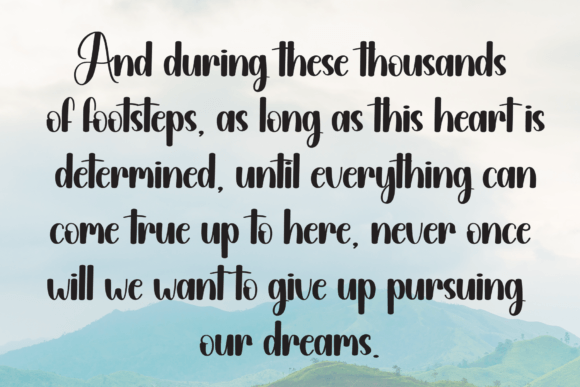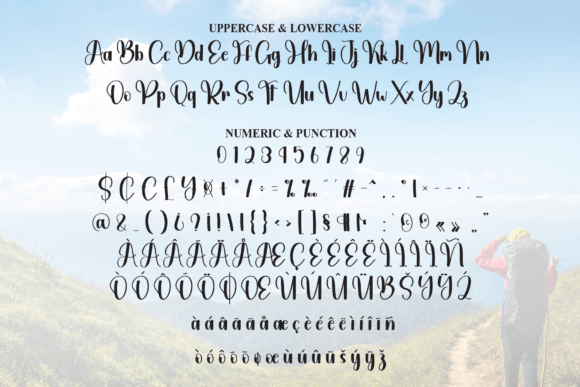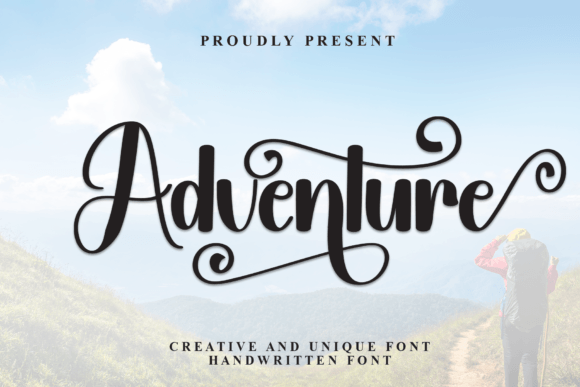
Introducing Adventure Font: The Perfect Companion for Fun and Creative Projects
Are you tired of using the same old fonts for your designs? Do you want to add a touch of personality and playfulness to your projects? Look no further than Adventure Font, a lively and handwritten font that’s perfect for fun and creative endeavors. In this article, we’ll take a closer look at what makes Adventure Font special and how you can use it to elevate your designs.
What is Adventure Font?
Adventure Font is a playful and lively handwritten font that looks like it was written with a marker or pen. Its personal and friendly feel makes it perfect for a wide range of applications, from fun projects and greeting cards to creative posters and more. With its unique and charming aesthetic, Adventure Font is sure to capture the attention of your audience and leave a lasting impression.
Key Features of Adventure Font
So, what sets Adventure Font apart from other fonts? Here are some of its key features:
• Handwritten with a personal touch: Adventure Font has a distinctly handwritten feel, as if it was written with a marker or pen. This gives it a personal and friendly aesthetic that’s hard to replicate with traditional fonts.
• Playful and lively: Adventure Font is the perfect choice for designers who want to add a touch of playfulness and whimsy to their projects. Its lively and energetic feel is sure to capture the attention of your audience.
• Versatile: Whether you’re working on a fun project, creating a greeting card, or designing a poster, Adventure Font is the perfect choice. Its versatility makes it suitable for a wide range of applications.
How to Use Adventure Font in Your Designs
Now that we’ve covered the basics of Adventure Font, let’s take a look at how you can use it in your designs. Here are some ideas to get you started:
• Greeting cards: Adventure Font is perfect for creating personalized greeting cards for special occasions. Its playful and friendly feel makes it ideal for birthdays, holidays, and other celebrations.
• Posters and flyers: Add a touch of whimsy and playfulness to your posters and flyers with Adventure Font. Its lively and energetic feel is sure to capture the attention of your audience.
• Fun projects: Whether you’re working on a craft project, creating a DIY tutorial, or designing a social media graphic, Adventure Font is the perfect choice. Its playful and friendly feel makes it ideal for fun and creative projects.
Tips for Getting the Most Out of Adventure Font
To get the most out of Adventure Font, here are some tips to keep in mind:
• Experiment with different colors: Adventure Font looks great in a variety of colors, so don’t be afraid to experiment and find the perfect hue for your project.
• Pair it with other fonts: Adventure Font pairs well with other fonts, so try combining it with a bold or serif font to create visual interest.
• Use it sparingly: While Adventure Font is perfect for adding a touch of playfulness to your designs, it’s best to use it sparingly. Too much of a good thing can be overwhelming, so use it to add emphasis or create visual interest.
In conclusion, Adventure Font is a playful and lively handwritten font that’s perfect for fun and creative projects. Its personal and friendly feel makes it ideal for greeting cards, posters, and other applications where you want to add a touch of whimsy and playfulness. With its versatility and charm, Adventure Font is sure to become a favorite in your design arsenal.